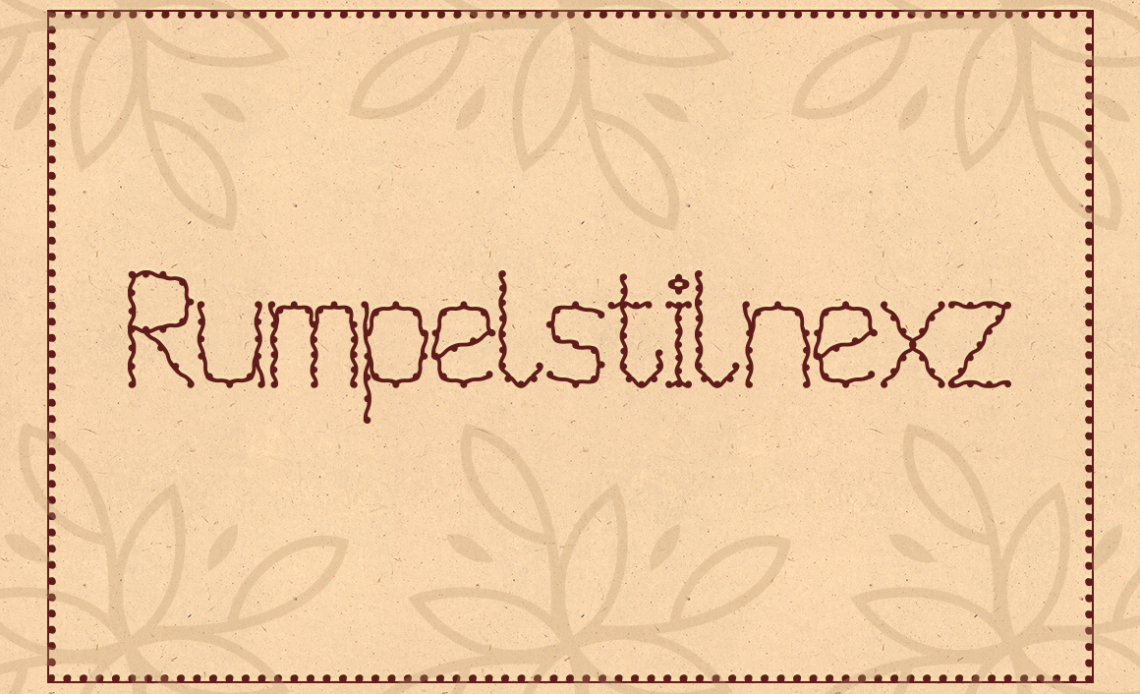
Indulge in the enchanting world of Rumpelstilnexz, a decorative font that's sure to ignite your creativity. Designed by the masterful hand of viper78, this captivating typeface exudes a charmingly casual air, perfectly suited for projects that yearn for a touch of warmth and whimsy.
Unleash your imagination as you navigate through countless possibilities with Rumpelstilnexz. Its intricate curves and playful strokes dance across the page, adding a dash of delight to your designs. Picture your projects adorned with its captivating presence, transforming into masterpieces that radiate a uniquely personal touch.
With Rumpelstilnexz at your fingertips, you'll effortlessly conjure up designs that whisper with charm and authenticity. Its ability to effortlessly capture the essence of handmade artistry makes it an ideal companion for projects seeking a genuine and heartfelt connection with their audience.
Immerse yourself in the boundless versatility of Rumpelstilnexz. Whether you're crafting enchanting invitations, heartwarming greeting cards, eye-catching logos, or whimsical packaging, this font possesses the innate ability to elevate your creations to new heights of sophistication.
Don't deny yourself the pleasure of experiencing the magic of Rumpelstilnexz. Embrace its whimsical spirit and allow your imagination to soar. Let your designs blossom with a touch of uniqueness and heartfelt charm.